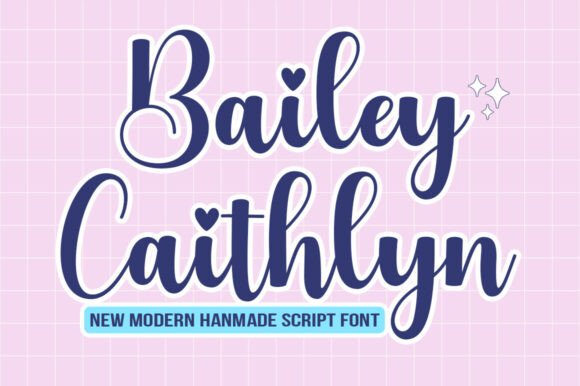
Exploring Bailey Caithlyn for Branding Projects
There’s something oddly satisfying about opening a blank brand board and starting from scratch. I recently found myself in that exact situation when I was tasked with creating a visual identity for a small, independent café in the heart of the city. The client wanted something warm, inviting, and slightly whimsical—something that would make people feel like they were stepping into a cozy little haven. That’s where Bailey Caithlyn came in.
A Font with Personality
Bailey Caithlyn Script is one of those fonts that immediately feels like it has a personality. It’s not your typical calligraphy—it’s contemporary, easygoing, and full of artistic swashes that give it a sense of movement. When I first placed it on my logo draft, I was struck by how effortlessly it captured the essence of the café’s vibe: friendly, approachable, and just a little bit magical.
The font’s design is clean yet expressive, with subtle flourishes that add character without overwhelming the text. It’s the kind of typeface that works well in both digital and print formats, making it versatile for a variety of applications. Whether it’s on a menu, a sign, or a social media post, Bailey Caithlyn maintains its charm and readability.
Testing in Real Design Scenarios
I started by using Bailey Caithlyn as the primary font for the café’s logo. I paired it with a simple sans serif font to balance out the script and create a more structured look. The combination worked beautifully, adding contrast while keeping the overall aesthetic cohesive.
As I moved into developing the brand identity, I tested Bailey Caithlyn across different mediums. On business cards, it felt elegant and professional. On packaging mockups, it added a touch of sophistication to the product labels. Even on social media graphics, it looked great against a backdrop of pastel colors and hand-drawn illustrations.
One thing I noticed early on was how well Bailey Caithlyn performed in terms of readability. Despite its decorative elements, the font remains legible at smaller sizes, which is crucial for things like website headers and Instagram posts. It’s also surprisingly effective for short-form text, such as headlines and taglines.
Font Pairing and Stylistic Flexibility
Bailey Caithlyn isn’t just a standalone font—it’s incredibly adaptable. I found that pairing it with a modern sans serif like Montserrat or a classic serif like Garamond created a nice balance between elegance and approachability. For a more playful look, I experimented with handwritten fonts, but Bailey Caithlyn held its own and didn’t get lost in the mix.
When designing the café’s website, I used Bailey Caithlyn for the hero section and headings, while the body text was kept in a simpler, more readable font. This helped maintain a clear visual hierarchy and ensured that the brand’s message was communicated effectively.
Another key consideration was the font’s support for multiple weights and styles. Having access to bold, italic, and alternate forms gave me more flexibility when designing different elements of the brand identity. It also made it easier to maintain consistency across various materials, from printed menus to digital banners.
Practical Advice for Designers
If you’re considering using Bailey Caithlyn for a branding project, there are a few things to keep in mind. First, always test the font in different contexts before committing to it in a full brand system. How does it look on a shop sign? A business card? A label sticker? These are all important questions to ask yourself.
Also, don’t be afraid to experiment with font pairing. Bailey Caithlyn works well with a range of other typefaces, so finding the right combination can elevate your design significantly. And if you’re working with a client, make sure to explain how the font affects brand perception and audience engagement. It’s not just about aesthetics—it’s about communication.
Finally, check the font’s licensing and file formats to ensure it meets your project’s needs. Bailey Caithlyn comes with a variety of styles and weights, making it a solid choice for both commercial and creative projects.
Final Thoughts on Bailey Caithlyn
Working with Bailey Caithlyn has been a refreshing experience. It’s a font that brings warmth and personality to any design, without sacrificing readability or professionalism. Whether you’re designing a logo, a packaging layout, or a social media graphic, this typeface has the versatility to meet your needs.
For designers looking to add a touch of elegance and artistry to their work, Bailey Caithlyn is definitely worth exploring. It’s a great example of how a well-designed script font can enhance a brand’s visual identity and make a lasting impression.